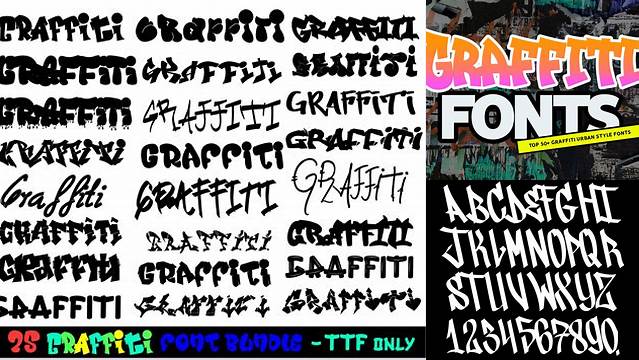
Graffiti art, with its vibrant colors, bold statements, and rebellious spirit, has captivated audiences for decades. A crucial element of this art form is, of course, the fonts used. And where do graffiti artists and enthusiasts alike often turn for inspiration, recommendations, and discussions? Reddit! This platform is a treasure trove of information on all things graffiti, including the best fonts to use. This guide dives deep into the world of best graffiti fonts on Reddit, exploring what makes a font "graffiti-worthy," highlighting popular choices, and providing tips for aspiring artists. So, if you're looking to level up your graffiti game, you've come to the right place!
1. Understanding the Essence of Graffiti Fonts
Guys, before we dive into the fonts themselves, let's talk about what makes a font a good fit for graffiti. It's not just about aesthetics; there's a whole philosophy behind it! Graffiti fonts need to be readable, impactful, and, above all, reflect the artist's personality and the message they want to convey. Some key characteristics to look for include boldness, to make your message pop from a distance. Often, graffiti is seen in large, public spaces, so the legibility is essential! The font should stand out, even when viewed from afar. Next is the presence of unique letterforms. This is about the style of your writing. Graffiti art is all about originality, so the best fonts often incorporate distinctive elements. Think about customized serifs, distorted shapes, or unconventional connections between letters. The use of shadow, outline, and 3D effects is another hallmark of graffiti fonts. These elements add depth and dimension, making the letters appear to leap off the surface. Finally, remember the adaptability. A great graffiti font will look good on a variety of surfaces and in different colors and sizes. The font should also be adaptable to different writing tools, from spray cans to markers.
So, when browsing through discussions on Reddit, keep these factors in mind. The fonts that consistently get the thumbs-up from the community often excel in these areas. These fonts can be found on various subreddits dedicated to graffiti art, design, and typography. When you're looking at posts, pay attention to the style of art, because the style of art often plays a huge role in the kind of fonts selected. The font must match the graffiti style. If you see a font in action, that means the font has the potential to deliver what the artist is looking for. The font you chose should also give you the capability to customize it, such as adding shadows and outlines. Think about what kind of message the artist wants to deliver. The font chosen also needs to have a good contrast with the background. Remember that the end result of your work will be determined by the font used.
2. Top Graffiti Fonts Recommended by Reddit Users
Now, let's get to the good stuff: the fonts! Reddit is full of threads dedicated to sharing and recommending the best graffiti fonts. Through community discussions, several fonts consistently rise to the top. One of the most popular font categories is the classic "bubble" fonts. Known for their rounded shapes and playful vibe, bubble fonts are a staple of graffiti. Reddit users often suggest variations like "Bubble Letters" or custom-made bubble-style fonts that offer a unique twist. These fonts are generally easy to read and are great for beginners. Then, there are the "wildstyle" fonts, which are more complex and stylized. Wildstyle fonts are characterized by their intertwined letters, sharp angles, and intricate designs. They are a more advanced choice, but they can create stunning visual effects. On Reddit, you'll find discussions on how to master the techniques for drawing and rendering these fonts. Another favorite is the "block" fonts. These fonts are known for their strong, bold appearance. They are very easy to read and are a great way to make a statement. Many variations of block fonts exist, from simple, clean styles to more elaborate designs with shadows and highlights. Reddit users often use block fonts for murals and large-scale pieces. There's also the "script" fonts. These mimic handwriting and offer a more personal feel. Script fonts can add an elegant touch to graffiti art. However, they must be readable. On Reddit, you'll find recommendations for script fonts that are specifically designed for graffiti.
Each font has its advantages and disadvantages. Choose a font that suits your artistic style and project goals. In addition, see what other people say about them. These fonts are popular because they are readable, adaptable, and visually appealing, making them ideal for various graffiti projects. Don't hesitate to ask for suggestions on Reddit if you are unsure. Also, browse the threads and see how different artists use the font. You will be inspired!
4. Tips for Choosing the Right Graffiti Font
Selecting the best graffiti fonts can be overwhelming, but here are a few tips to guide you: First, consider your style and message. What kind of vibe are you going for? Bold and aggressive? Playful and cartoonish? Your font should complement your overall artistic vision. Secondly, think about the surface and environment. Will your graffiti be on a rough brick wall or a smooth metal surface? The font's readability may change depending on the surface. Also, consider the lighting conditions. Will the piece be viewed in bright sunlight or low light? Make sure that the font is clear. You should also consider the size of the font. A large mural will need a different font than a small tag. Experiment with different fonts. Test them out on paper or digital mockups before you commit to a large-scale project. This will help you see how the font looks in action. Finally, look for feedback. Share your designs on Reddit or other online forums and ask for opinions. It's a good way to improve. Reddit users can give you valuable feedback. This will help you to improve your design. They can also offer advice on the design elements. They also can provide the right font for your project. If you're unsure, start with a few classic fonts and experiment with variations. As you gain experience, you can explore more complex and unique styles. The best way is to find your own voice. The more you practice, the better you get.
5. Font Combinations and Typography Techniques for Graffiti
Best graffiti fonts aren't just about individual fonts. Combining fonts and using typography techniques can take your graffiti to the next level. Experimenting with different fonts can add visual interest and create a more dynamic composition. To start, try pairing a bold font with a script font. This combination creates a contrast. You can also try pairing a sans-serif font with a serif font. This gives you a dynamic design. Be sure that the fonts complement each other. Consider the overall mood and message you want to convey. Another great technique is to vary the size, weight, and color of your fonts. This adds depth and dimension to your design. Use color to highlight certain words or phrases. You can use different colors. Don't be afraid to experiment and see what works best. Use all kinds of colors in different areas. Adding shadows, outlines, and 3D effects can make your letters pop. These techniques give the illusion of depth. Outlines can also help make your letters stand out against a busy background. Practice these techniques. Start with simple designs. Then experiment with more complex compositions. Always consider how your choices will affect the overall readability and impact of your graffiti.
6. Utilizing Digital Tools and Software for Graffiti Font Design
Digital tools can greatly enhance your graffiti font design process. Using software to create and refine your designs. Adobe Photoshop and Illustrator are industry standards. They offer powerful features for creating custom fonts, experimenting with effects, and creating mockups. You can also explore free and open-source options like Inkscape and GIMP. They are great options for designing fonts. Another option is online font generators. These tools allow you to generate text effects and explore different font styles quickly. They're great for experimenting with colors and gradients. When using digital tools, consider the resolution of your artwork. Make sure it is high enough for your desired output. This is useful if you want to print it on a t-shirt. Another option is to use a tablet and stylus. This lets you create hand-drawn designs. You can then convert them into digital fonts. This is the best of both worlds. You get the freedom of freehand drawing, plus the flexibility of digital editing. There are also tutorials online on how to use these tools. Reddit is full of tutorials. The community will help you by giving advice. You can also ask for recommendations about the right software.
7. The Role of Legibility and Readability in Graffiti Art
Legibility and readability are crucial aspects of best graffiti fonts because it is key to making your message understandable and your art effective. If people can't read your message, the art will fail. To improve readability, make sure your letters are distinct. This means avoiding overly complex or intertwined designs that can be difficult to decipher. The spacing is important, so make sure there is enough space between the letters. This improves clarity. Also, consider the background of your piece. A cluttered background can make the letters harder to read. Use a solid background. You can also consider the color scheme. The contrast is important between the font and the background. This will make the font stand out. Experiment with different fonts. Test the legibility on paper. This will help you to refine your design. Reddit is a good place to ask for feedback. It is a good place to improve your designs. Remember that the goal is to communicate, so make your message clear.
8. Exploring Different Graffiti Styles and Font Adaptations
Graffiti encompasses a variety of styles, and best graffiti fonts can be adapted to suit each style. The "throw-up" style is characterized by its quick execution and simple letterforms. Fonts used in this style tend to be bold and easy to write quickly. The "wildstyle" is more complex. This is characterized by intricate letter structures and intertwined letters. Fonts for wildstyle require a lot of detail. The "stencil" style is created using stencils. Fonts need to be adapted for this technique. The "3D" style gives the illusion of depth. The font is created using shadows and highlights. Experiment with different styles. You can create your own hybrid style. Adapt your fonts to fit the chosen style. Different font adjustments work with different styles. Always practice your styles. On Reddit, you'll find artists sharing their different styles. They provide tips and techniques. You can also ask the artists for feedback. You can also discuss new ideas. The graffiti world offers many opportunities. You can use various fonts and styles to express yourself.
9. Common Mistakes to Avoid When Choosing Graffiti Fonts
When choosing best graffiti fonts, certain mistakes can hinder your work. One common error is choosing fonts that are too complex for the surface or skill level. It's easy to get carried away with intricate designs, but remember to prioritize readability. If your audience can't understand the message, the artwork will fail. Another mistake is neglecting the contrast between the font and the background. If the colors blend, the font is difficult to read. Consider the surface and the environment. A font that looks good on paper may not translate well to a wall. Test your designs. Another error is not experimenting. Experiment with different styles and techniques. You might miss out on the style. Finally, do not copy other artists. While it's good to get inspiration from other artists, copying their style limits your originality. Always develop your unique style. On Reddit, you can find many discussions on what to avoid. The community is there to offer advice and feedback. Be sure to avoid these mistakes to elevate your work.
10. The Evolution of Graffiti Fonts Over Time
Graffiti fonts have evolved significantly since the early days of the art form. Initially, many graffiti artists used simple, bold letterforms, often inspired by the typefaces found on trains and in comic books. As the style evolved, artists began experimenting with more complex designs, incorporating elements like arrows, drips, and 3D effects. These fonts gained popularity. The rise of digital technology has influenced the evolution of graffiti fonts. Artists now have access to a vast range of tools and resources for designing and sharing their work. This has led to more diverse styles and innovative techniques. The influence of popular culture, including music, fashion, and street art, has also shaped the evolution of graffiti fonts. Modern graffiti fonts often reflect these trends, incorporating elements from other art forms and design styles. On Reddit, you can find discussions on the history of the fonts. The community often shares information about the evolution. You can see how the fonts have changed over time. You can be inspired by the evolution of the style and experiment with them.
11. Best Graffiti Fonts: Bubble Letter Fonts on Reddit
If you're diving into the world of graffiti, chances are you've encountered bubble letters. These rounded, playful fonts are a staple in graffiti, beloved for their accessibility and visual appeal. Best graffiti fonts often include those found in bubble letter styles. On Reddit, the bubble letter font frequently surfaces in discussions. Reddit users often share tutorials on how to draw bubble letters. They share tips and techniques. There are variations of bubble letter fonts. Some are simple and clean, while others incorporate shadows and outlines. The community provides a lot of resources for these fonts. You can find font generators and tools that will help you create your unique version. The simplicity of bubble letters makes them a great choice for beginners. They can also be adapted for more complex designs. Reddit users often showcase their projects. You can be inspired by their work. You can also get feedback on your art.
12. Exploring Wildstyle Fonts: Complex Graffiti Typography
Wildstyle fonts represent the more complex side of graffiti typography. Characterized by interlocking letters, sharp angles, and intricate details, these fonts demand precision and creativity. Mastering wildstyle fonts takes time and practice. But the results can be stunning. Reddit is a great place to explore wildstyle fonts. Discussions and tutorials help people improve. On Reddit, you can also find examples of wildstyle fonts in action. Artists showcase their work. There are many subreddits that are dedicated to the art. Users often provide tips and feedback. If you are new to the art, you can start simple. Then you can work your way to the complex design. Some wildstyle fonts are very difficult to read. You need to make sure the lettering does not get lost. Wildstyle is a challenging style. You will have to be creative. You will also need to practice. Reddit provides a great community to learn and improve.
13. Block Letter Graffiti Fonts: Bold and Impactful Choices
Block letter fonts are a cornerstone of graffiti. Known for their bold, impactful appearance, these fonts make a strong statement. The best graffiti fonts include those in the block letter style. They are clear and easy to read. Block fonts come in different variations. Some are simple, while others are more elaborate. This versatility makes them suitable for various projects. Reddit users often share their block letter designs. They provide inspiration and feedback. The clear readability of block fonts makes them a great choice for beginners. They are also a great option for large-scale projects. On Reddit, you can find discussions about the different types of block fonts. You can also find tips on drawing and rendering these fonts. The community is always ready to help. You can start with the basics. Then you can develop more complex designs. Block fonts are a simple and bold choice.
14. Script Fonts in Graffiti: Adding Elegance to Street Art
Script fonts bring an element of elegance and personality to graffiti. These fonts mimic handwriting. They can be a unique expression. The best graffiti fonts can incorporate script styles. Script fonts require care. The legibility must be kept in mind. On Reddit, you will find discussions and examples of script fonts. Artists can share their work. The community provides feedback and suggestions. If you want to use a script font, you must make sure it is readable. The font should complement the overall design. Some artists specialize in script fonts. They develop unique styles. You can find tutorials and design guides. Reddit is a great source of inspiration. Script fonts are a good choice to add character to the art. You can also experiment with different techniques.
15. Digital Graffiti Fonts and Software Recommendations
Digital tools are essential for modern graffiti artists. They allow for precise design and easy experimentation. The best graffiti fonts are created using digital tools. On Reddit, you can find many discussions about digital tools. Users often share software recommendations. Adobe Photoshop and Illustrator are very popular. They provide features for creating and editing fonts. Inkscape and GIMP are free alternatives. These software packages are good for beginners. Reddit users provide tutorials and tips. The software can be used to design different fonts. You can also use tablets and styluses. These tools provide a natural drawing experience. It is important to find the right tool. The community provides useful advice and recommendations. You can improve your designs and create stunning graffiti.
16. Reddit Communities for Graffiti Font Inspiration and Collaboration
Reddit has a large number of subreddits. These communities are very helpful for graffiti artists. They provide inspiration, feedback, and collaboration opportunities. Best graffiti fonts are often discussed in these groups. Some popular subreddits are dedicated to graffiti. Other subreddits focus on design. They are great for finding new fonts. These groups are great for discussions and tutorials. You can ask questions and receive feedback. There are also communities that are very active. These groups provide motivation. Reddit communities can help artists connect. You can share your work. You can also find people to collaborate with. You can also find other artists. The community offers support and resources.
17. Tips for Creating Your Own Graffiti Fonts
Creating your own graffiti fonts is a great way to express yourself. It lets you develop a unique style. The best graffiti fonts are often the result of a personal approach. When designing your own font, start with a basic letter style. Then add your own elements. You can experiment with shapes, angles, and effects. Consider the legibility. Your letters should be easy to read. Use digital tools for creating fonts. Adobe and Inkscape are great. You can also use online tools. There are many tutorials available. Reddit provides lots of resources. Practice is very important. Start with simple letters. Then develop complex designs. Be sure to develop your style. Your style will show in your fonts. The more you experiment, the better you will become.
18. Licensing and Usage of Graffiti Fonts: What You Need to Know
Before using a graffiti font, it is important to understand its licensing and usage terms. Best graffiti fonts are available under different licenses. Some fonts are free for personal use. Others require a license for commercial projects. Always check the license terms before using any font. You can typically find this information on the font download site. The license will outline how the font can be used. It will also cover modifications. It will also explain the commercial use. Pay attention to the restrictions. Some fonts cannot be used for certain types of projects. Commercial use usually requires a license. It can also cost money. Always respect the font creators. If you have questions, ask them. Respecting the licenses protects you from potential legal issues. It also supports the artists. On Reddit, you can find discussions about font licensing. It is important to understand the licensing.
19. Graffiti Font Design: Exploring Shadows, Outlines, and 3D Effects
Shadows, outlines, and 3D effects are common in graffiti. They enhance the visual appeal of the fonts. The best graffiti fonts make use of these techniques. These techniques give the illusion of depth and dimension. They make the letters pop. Shadows add depth. They simulate the effect of light. Outlines create contrast. They also separate the letters from the background. 3D effects give the appearance of volume. Experiment with different techniques. See how these effects change your design. Start with simple effects. Then experiment with complex ones. On Reddit, you will find lots of tutorials. You can get inspiration. You can also improve your designs. These effects will make your designs stand out. Learning these techniques will improve your artistic skills.
20. Best Graffiti Fonts on Reddit for Beginners
If you're new to graffiti, choosing the right fonts can make a big difference. Some fonts are easier to learn than others. Best graffiti fonts for beginners are simple, clear, and visually appealing. Bubble fonts are a great choice. They are easy to draw. Block letter fonts are easy to understand. They are bold and impactful. They are also easy to create. These fonts are easy to read. They are good to start with. On Reddit, you will find many tutorials. You can find easy to follow guides. You can also find discussions about what fonts to use. Focus on the basic lettering. Practice these fonts. As you improve, try more complex styles. The Reddit community is there to help you.
21. Graffiti Font Styles for Different Graffiti Mediums
Graffiti fonts can vary depending on the medium used. Spray paint, markers, and stencils all require different font considerations. Best graffiti fonts will change depending on the medium used. For spray paint, bold and legible fonts work well. The font must be simple. This is because spray paint can be hard to control. Markers can create detailed designs. Markers offer a wider range of styles. Stencils require fonts that can be easily cut. Stencil fonts must be adaptable. It is important to consider the medium. The font should match the medium. On Reddit, you will find artists sharing their tips. The community provides guidance. You can get tips for your medium. You can also see various fonts. Learn how to use the various mediums.
22. Typography and Graffiti: Blending Font Styles for Artistic Expression
Typography plays an important role in graffiti art. It determines how messages are conveyed. Combining different font styles can improve expression. Best graffiti fonts are created by using different styles. Pairing a bold font with a script font adds contrast. Using a serif font with a sans-serif font creates balance. Experiment with the different combinations. Be creative with colors and sizes. This improves visual interest. On Reddit, you will see people sharing their combinations. You can get inspiration. You can also develop your techniques. Explore different types of typography. These will help you express yourself.
23. Graffiti Fonts and Street Art Culture: A Cultural Connection
Graffiti fonts are deeply rooted in street art culture. They reflect the artistic expression. The best graffiti fonts contribute to this connection. The fonts have a history. They reflect the rebellion. They have a social commentary. Graffiti fonts are often inspired by music and popular culture. They serve as a form of communication. They are also a visual language. The fonts are a way to express themselves. Graffiti art makes a visual statement. It is part of the community. On Reddit, you can find discussions about these connections. You can learn more about the culture. You will appreciate the art.
24. Best Graffiti Fonts on Reddit for Tags and Throw-Ups
Tags and throw-ups are quick forms of graffiti. They rely on speed. The best graffiti fonts for these styles are bold, simple, and easy to write quickly. Tag fonts are used for signatures. They are very quick to execute. Throw-up fonts are designed for speed. They are also quick and easy to do. They are usually easy to read. They are easily recognizable. Practice is important. You can find these on Reddit. You can also find discussions. You can get techniques. You can see what font to use. The fonts are for speed. The fonts are recognizable. The fonts express the art.
25. Font Design Tutorials and Resources Shared on Reddit
Reddit is a great source of tutorials and resources. The community shares techniques to make designs. The best graffiti fonts are made using various techniques. You can find a lot of resources. You can find detailed guides. You can find videos. The guides will help you. You can also ask questions. You will find a lot of examples. Start with the basics. You can find more advanced tutorials. Reddit is a great place to improve your skills. You can develop techniques. The community will give you tips and support. Use the resources to improve your designs.
26. Using Graffiti Fonts in Digital Design and Graphic Design
Graffiti fonts are used in various design projects. This is because they are bold. The best graffiti fonts can be used for different designs. They add a unique touch to the project. Graffiti fonts can be used for posters. Graffiti fonts can be used for logos. They make an artistic statement. They can be used for marketing. They are very versatile. Be sure the font matches the design. Choose the font carefully. Reddit has a lot of resources. You can learn about design. You can see inspiration from various artists. You can improve your skill and make your designs great.
27. Graffiti Font Design: Exploring Letter Anatomy and Structure
Understanding the structure of letters is a key aspect of best graffiti fonts design. The structure of letters is very important. You need to learn the anatomy. You need to learn how letters are made. Knowing these basics will improve your designs. Focus on each part of the letter. This includes the strokes, serifs, and curves. You can use different fonts. They have their own parts. Study the letter anatomy. Practice by drawing the letters. Experiment with different styles. This improves your designs. You can find help on Reddit. You can also ask other artists. The structure of the letters is very important. It will improve your skills.
28. Incorporating Graffiti Fonts into Apparel and Merchandise
Graffiti fonts are used on apparel and merchandise. They are a way to express yourself. Best graffiti fonts are a popular choice. Graffiti fonts add style and creativity. The fonts can be used on t-shirts. They can be used on hats. They can be used on other products. Choose fonts that match the brand. Make sure they are easy to read. You can learn more on Reddit. You can find tips and ideas. You can also share your ideas. If you are selling products, make sure you have the license. Graffiti fonts can be used to add a unique touch. They can be used to make great merchandise.
29. Graffiti Font Inspiration: Iconic Styles and Influential Artists
Looking at iconic styles helps in the best graffiti fonts selection. Explore the styles of famous artists. Study the art of the pioneers. You will find many examples on Reddit. You can learn about the techniques. You can also be inspired by the art. Their work will help you improve. Always respect the other artists. Find your own style. By studying other artists, you can develop your style. The community is always there for inspiration. You can get new ideas. You can develop your skills.
30. The Future of Graffiti Fonts and Trends in Design
The future of graffiti fonts involves ongoing innovation and creativity. New styles are constantly appearing. The best graffiti fonts will continue to evolve. You can see all the different changes. The designs will be influenced by technology. You will see the use of digital tools. Experiment with new ideas. Explore different styles. The trends will also be influenced by other art forms. You can learn about these trends. You can learn on Reddit. Be part of the trends. Always look for new ways to express yourself. These trends will help you to improve and will let you develop.